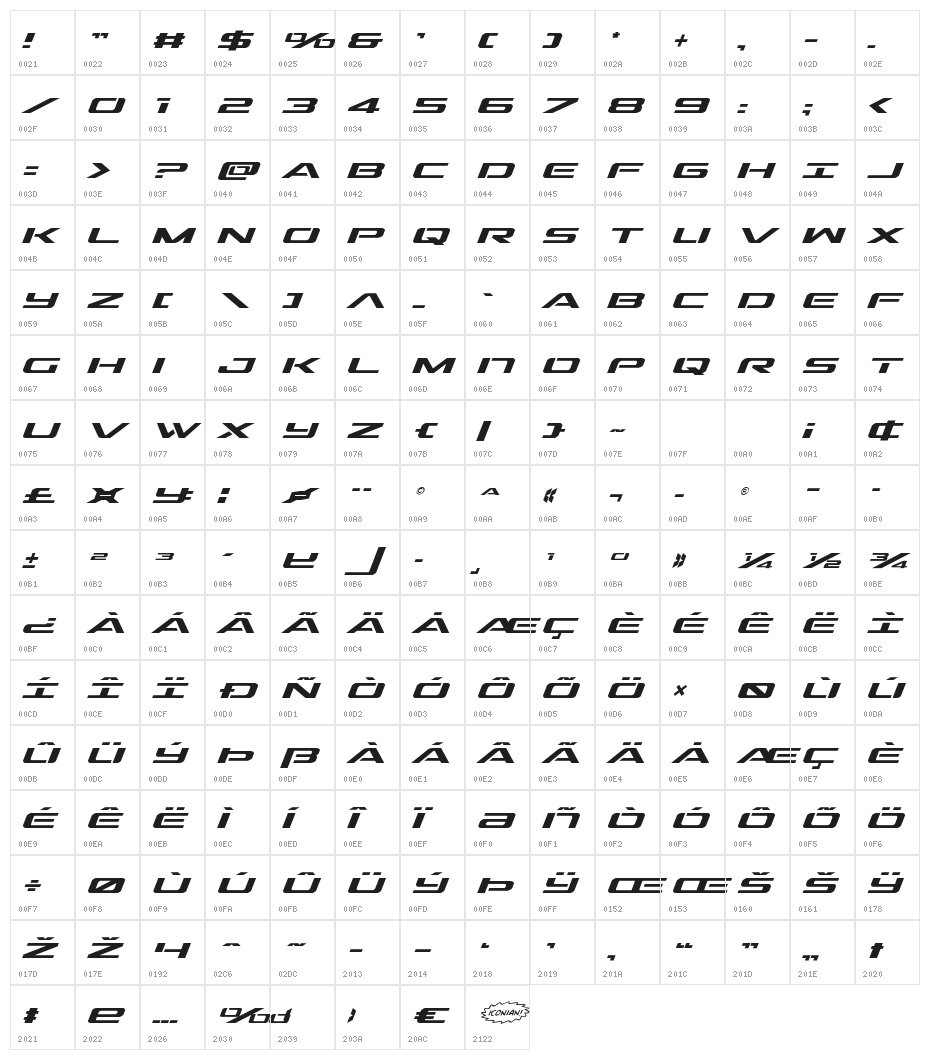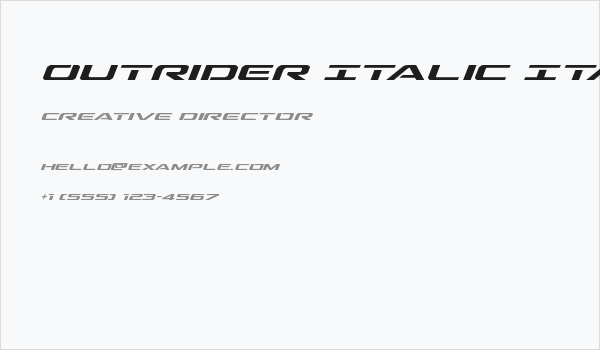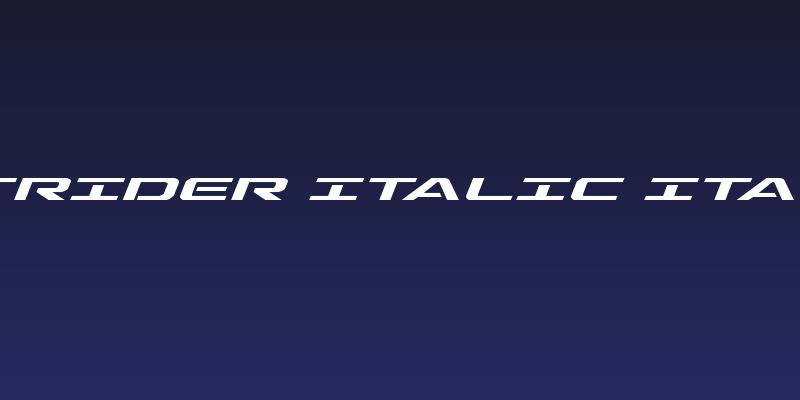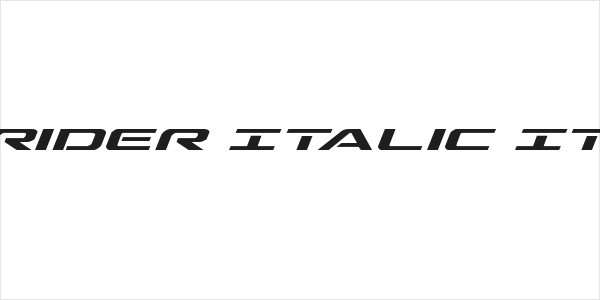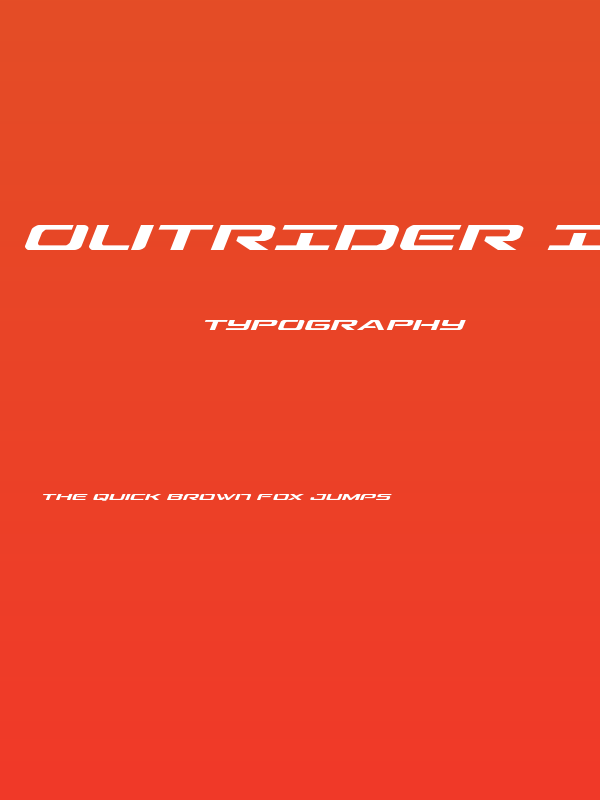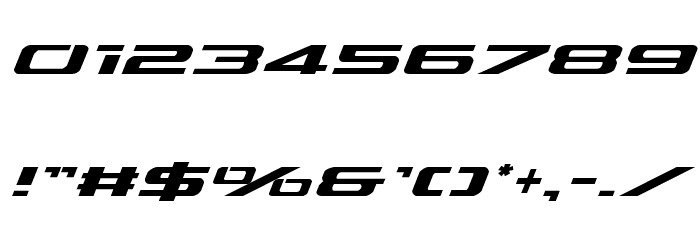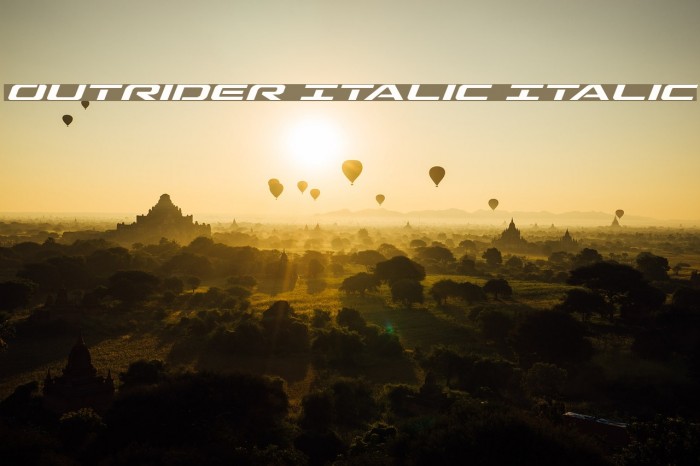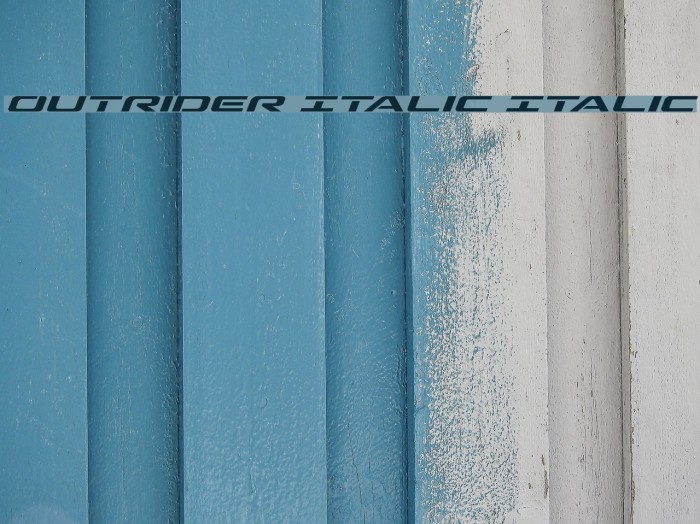
Outrider Italic Italic Font
Outrider Italic Italic Description
This font exhibits a sleek, futuristic design with a strong italic slant, giving it a sense of motion and speed. The characters are crafted with sharp angles and clean lines, contributing to a modern and dynamic appearance. The uppercase and lowercase letters maintain a consistent style, while the numerals and special characters integrate seamlessly into the overall design. The font's geometric structure and uniform stroke width enhance its readability and visual impact.
| Use Case | Logos, Headlines, Branding |
| Proposed Projects | Ideal for projects that require a modern and energetic feel, such as technology branding, sports team logos, automotive advertisements, and sci-fi themed designs. |